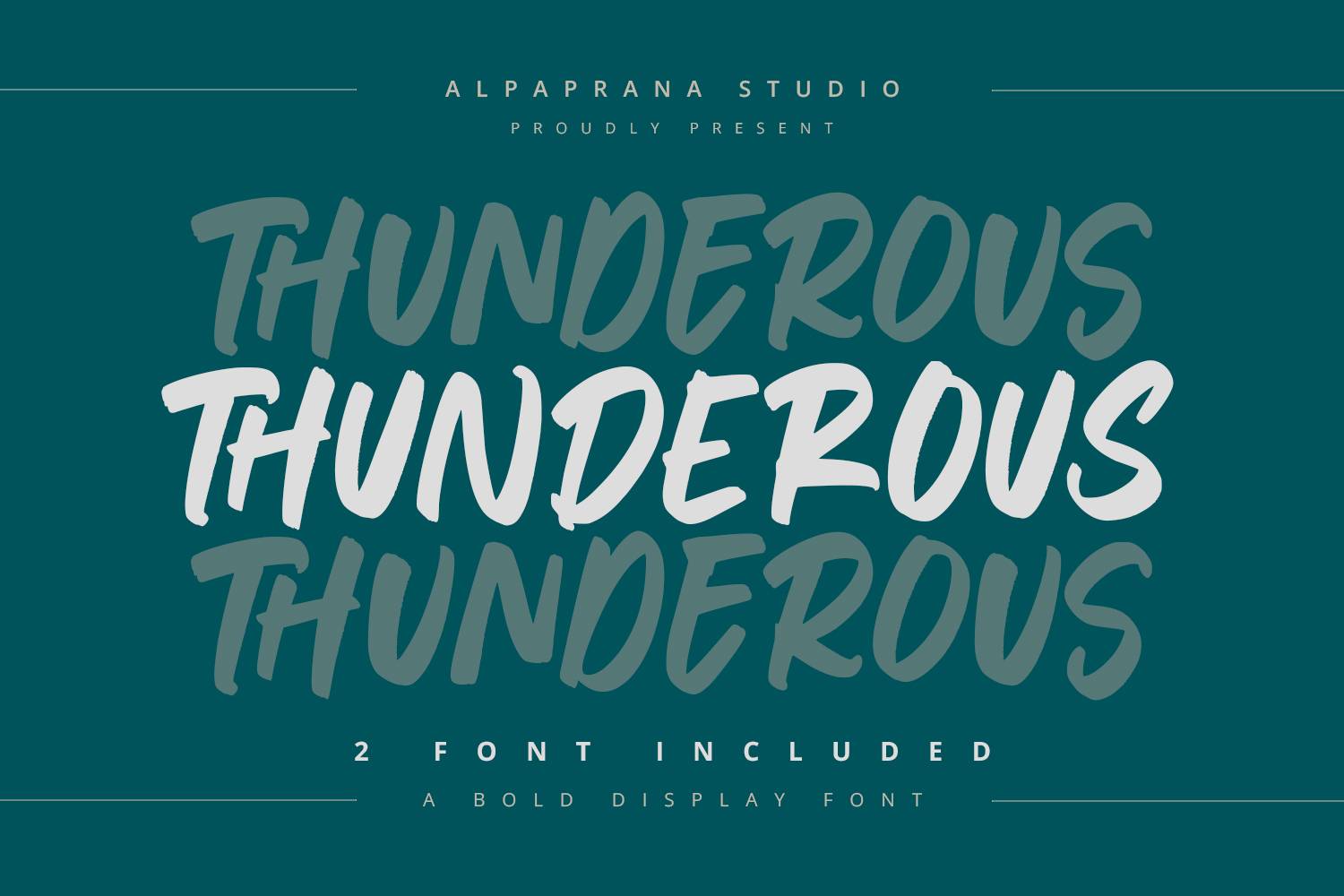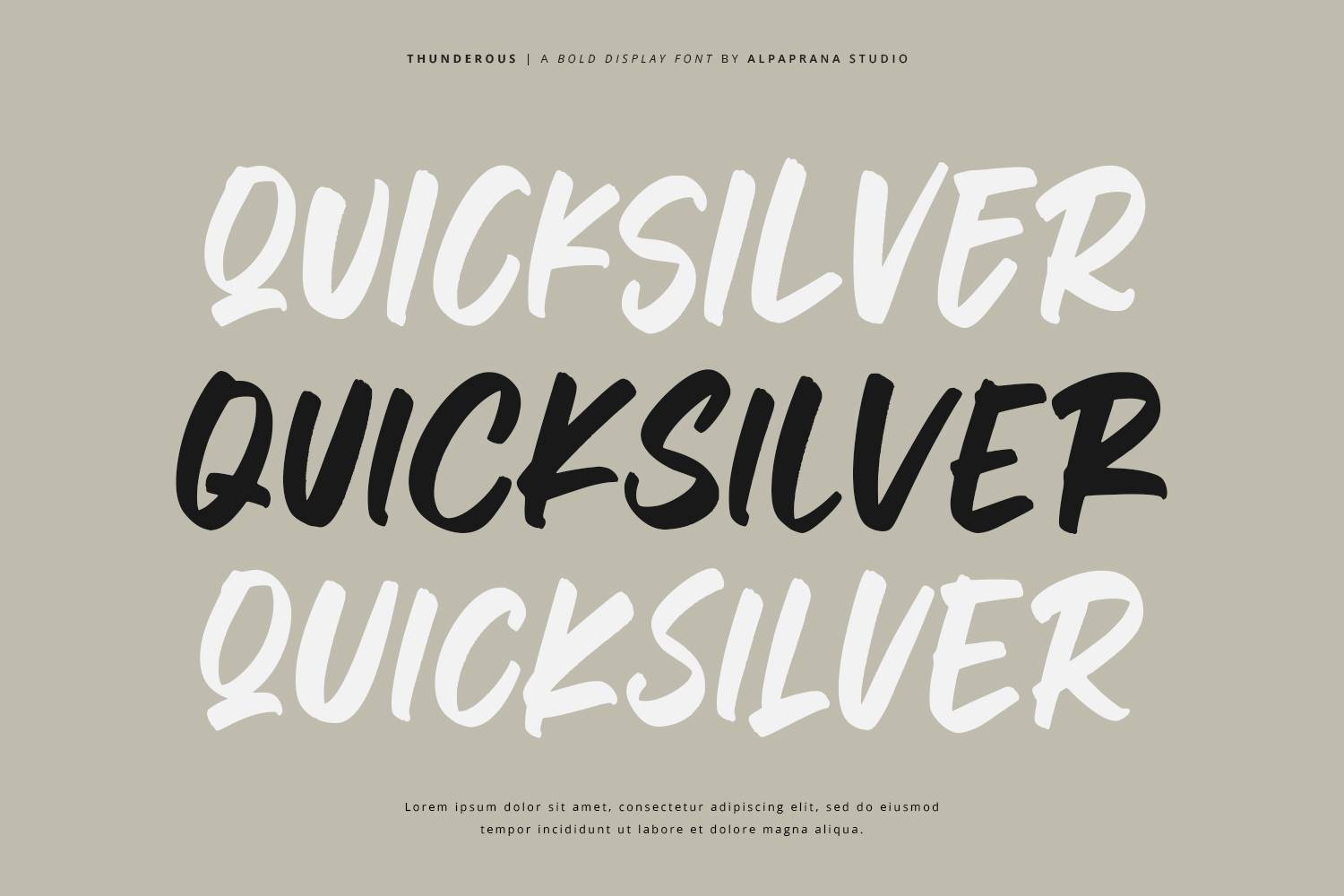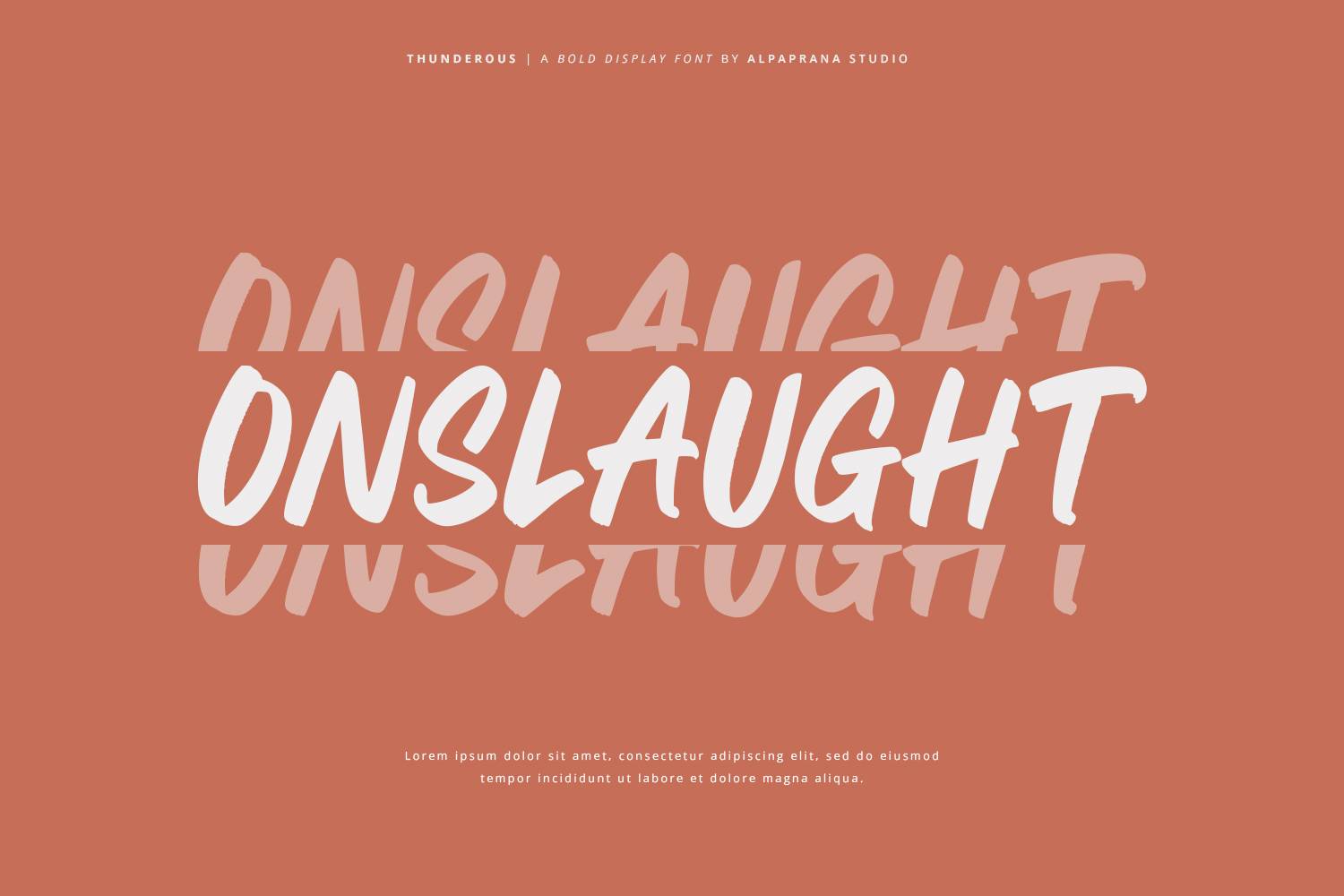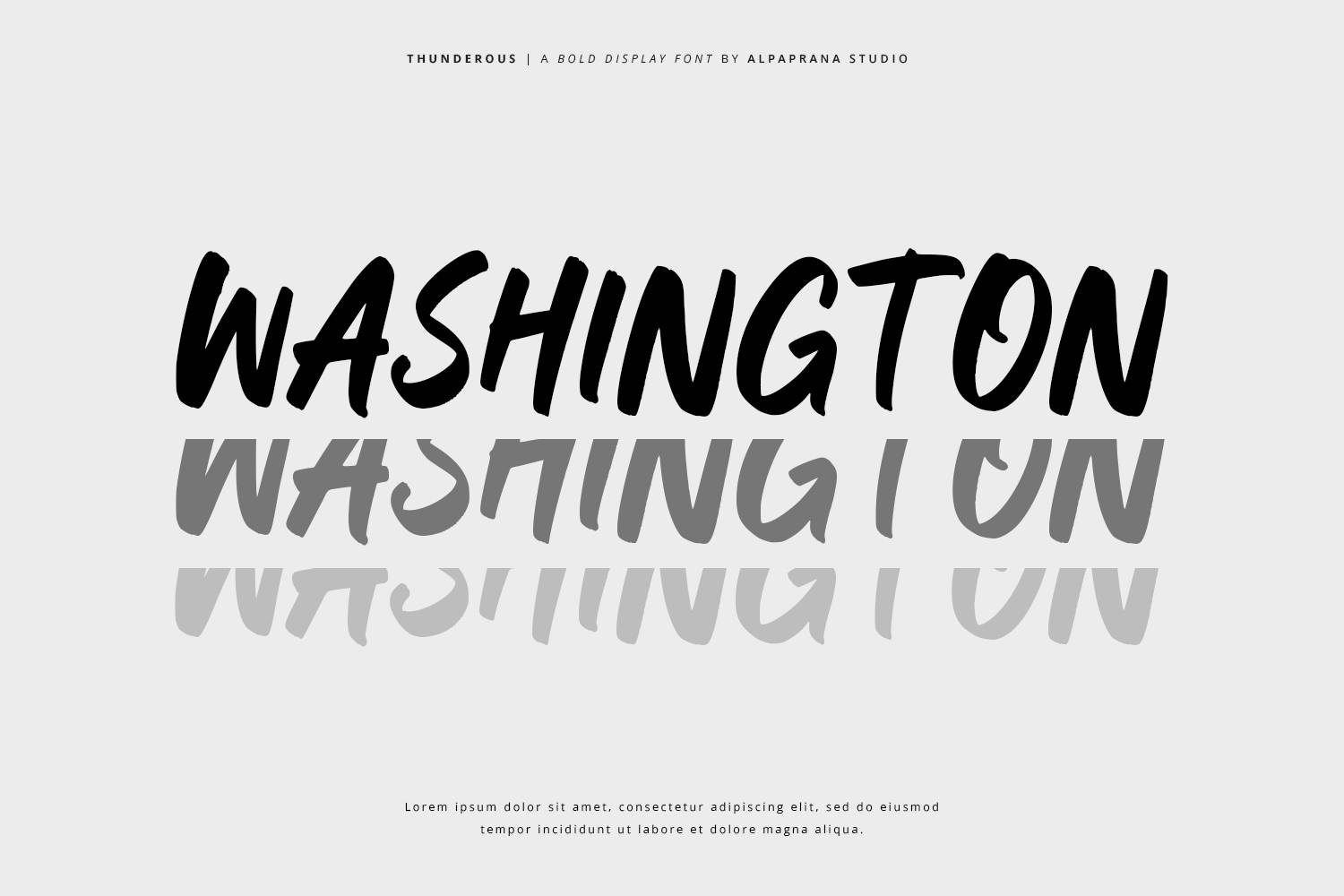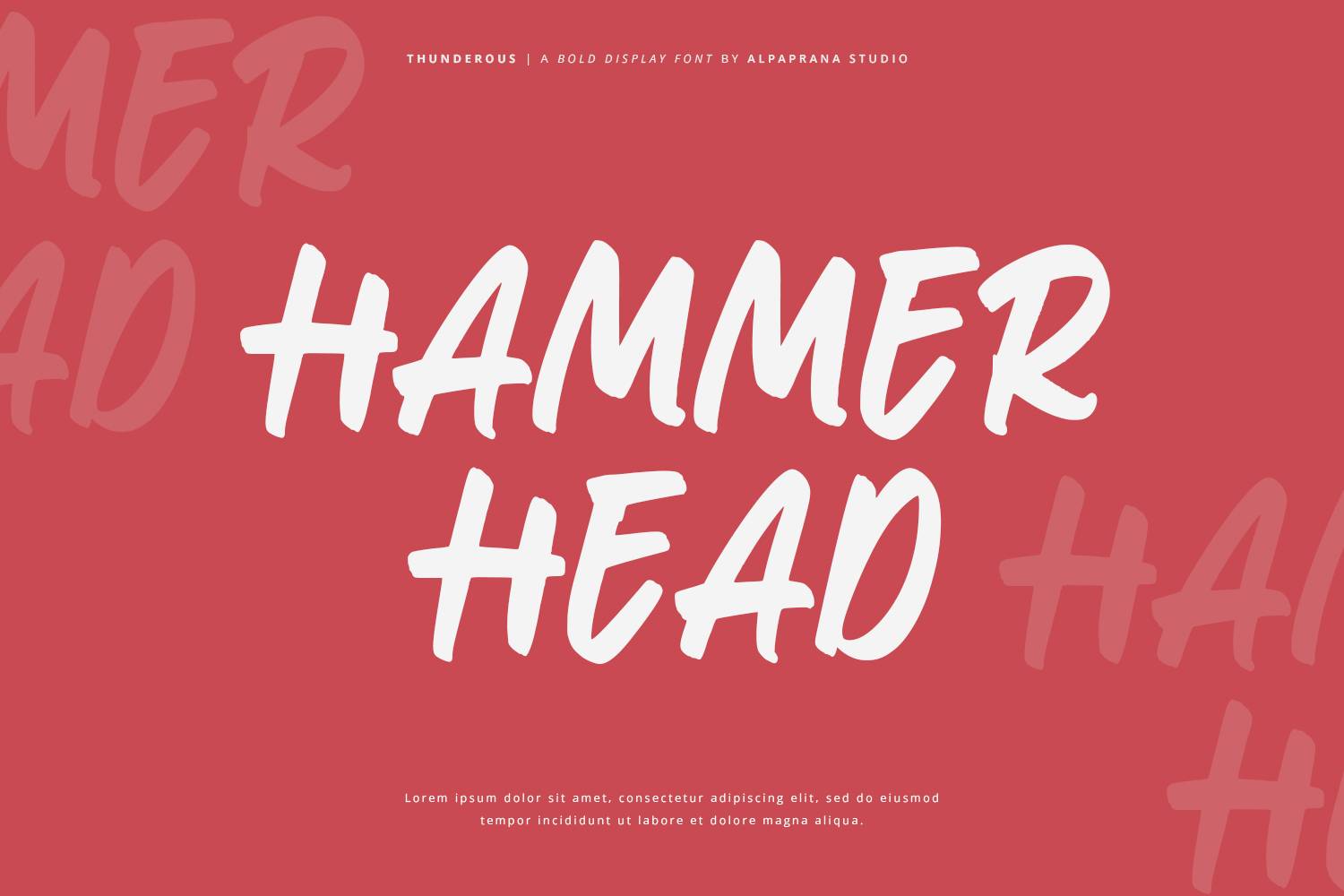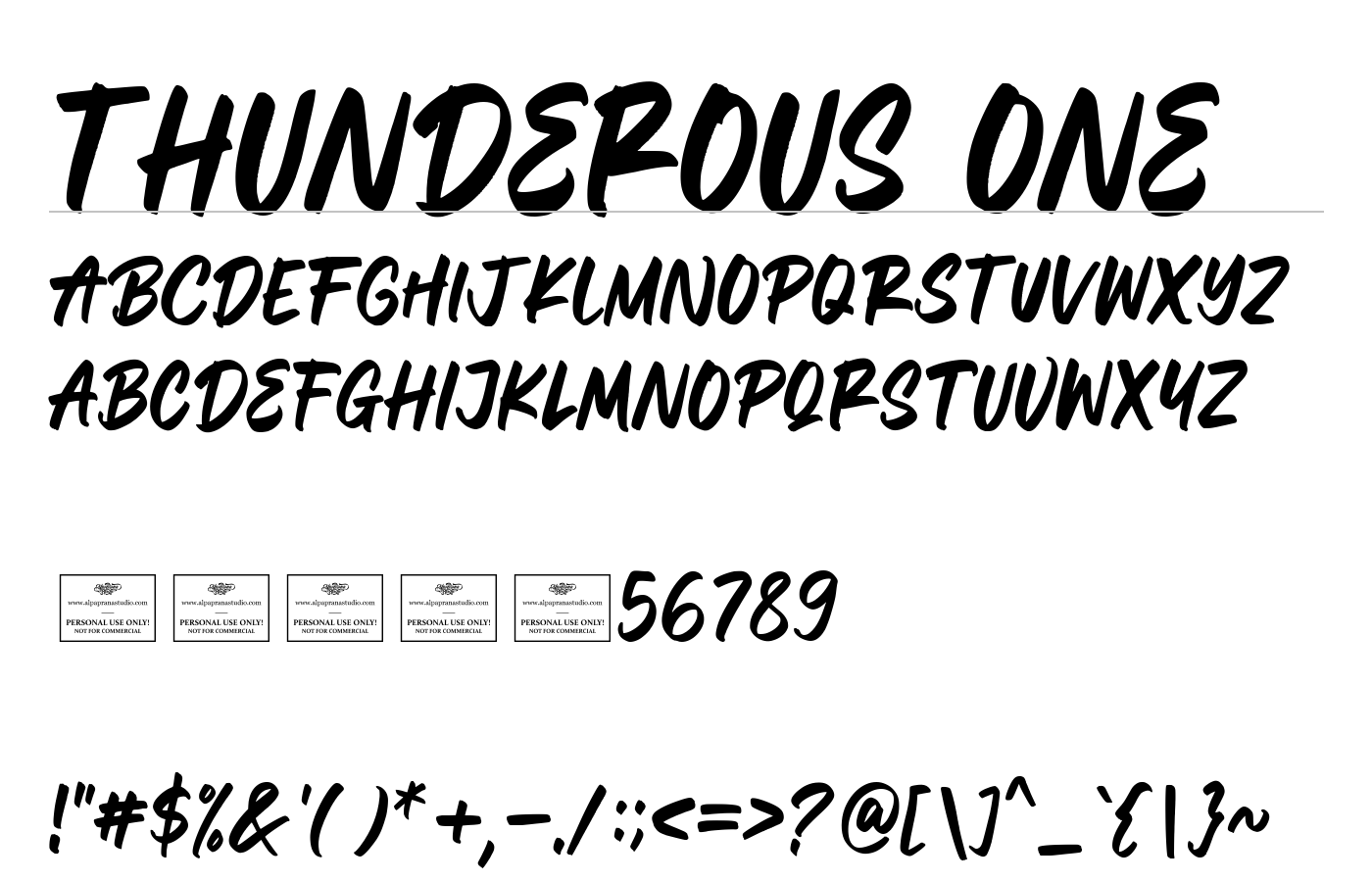
Thunderous is a bold, energetic brush script font with a casual and dynamic feel. Its thick strokes and slightly slanted glyphs create an expressive, hand-painted style that works great for eye-catching headlines, branding, and creative projects seeking a lively, confident vibe. This font’s friendly, modern personality suits designs that want to stand out with personality and impact.
Thunderous Font
About Thunderous Font